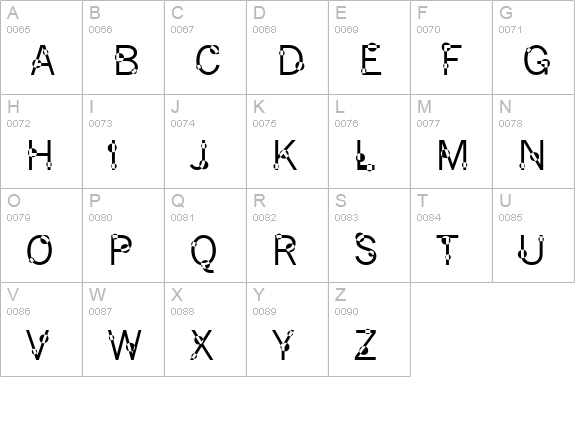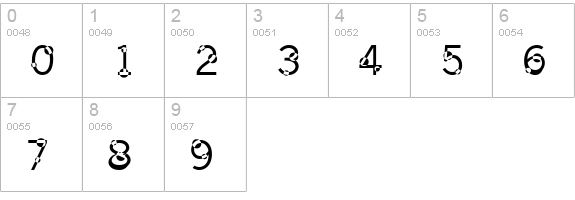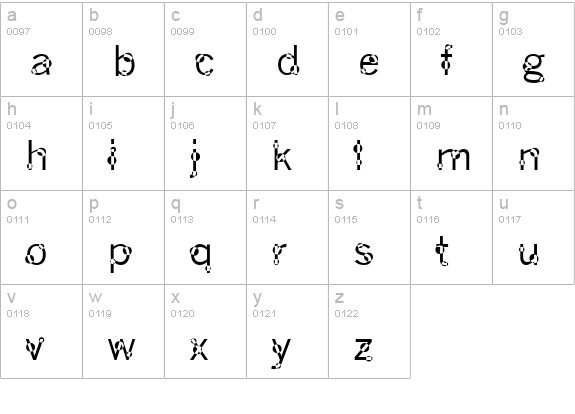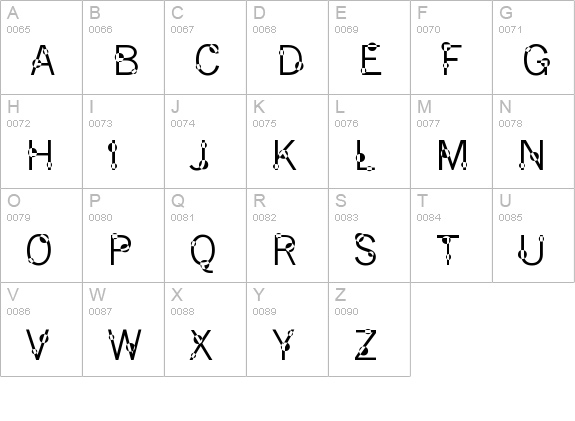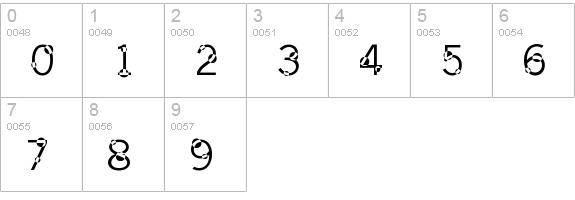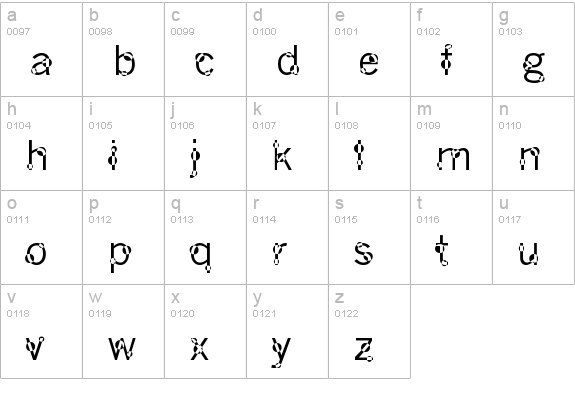
Dot Your Eyes font is a visually striking typeface that combines sleek modern lines with a touch of whimsy. This versatile font features clean, crisp dots that add a playful element to any design project. Whether you're creating a poster, logo, or social media graphic, Dot Your Eyes font is sure to make a bold statement. The best part? Dot Your Eyes font is completely free to download at FontsMarket.com. This means you can access this eye-catching font without any cost, making it a valuable addition to your font collection. With its unique style and easy readability, Dot Your Eyes font is perfect for adding a touch of personality to your designs. Download it today and let your creativity shine with this free and fabulous font!